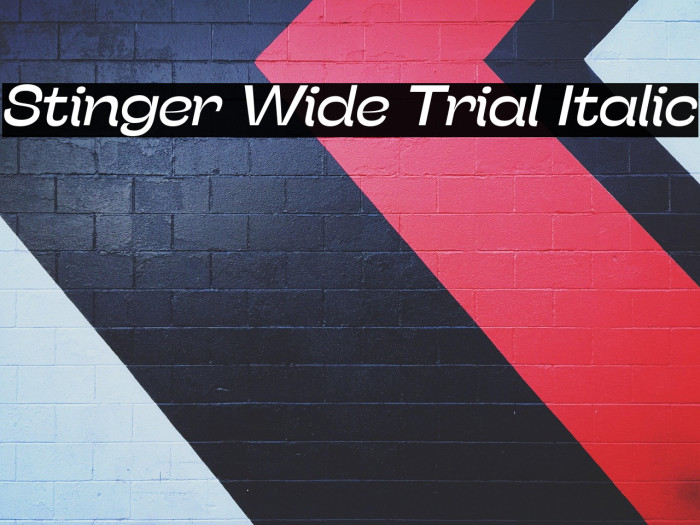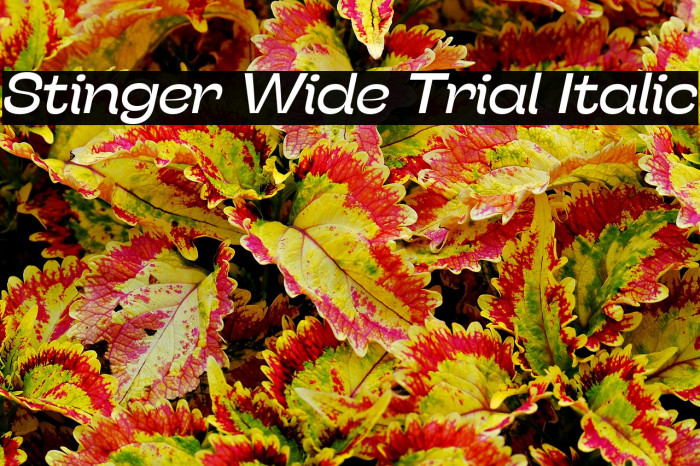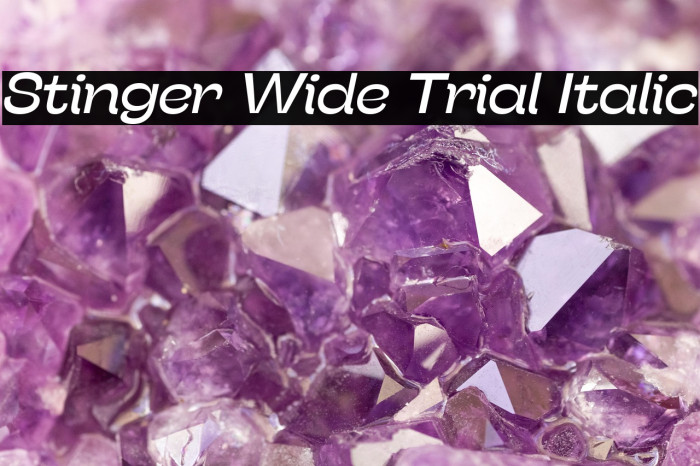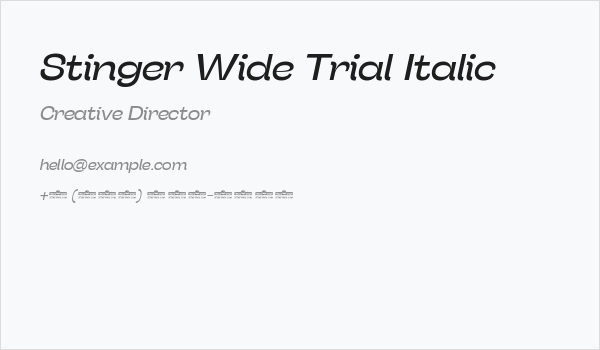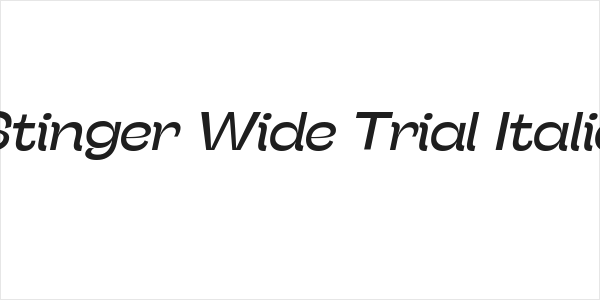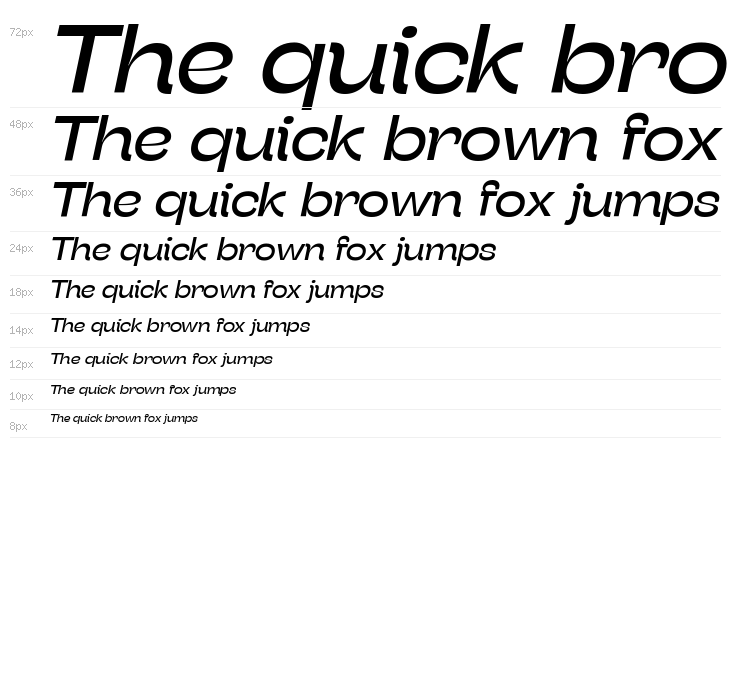
Stinger Wide Trial Italic Font
Stinger Wide Trial Italic Description
This font exhibits a modern and sleek design with a distinct italic slant, giving it a dynamic and forward-moving appearance. The characters are wide and spacious, providing a sense of openness and readability. The strokes are consistent in weight, offering a uniform look across all characters. The font includes both uppercase and lowercase letters, numerals, and a selection of special characters, making it versatile for various applications. Its clean lines and contemporary style make it suitable for modern design projects.
| Proposed Projects | Ideal for branding, advertising, and editorial design where a modern and dynamic look is desired. |